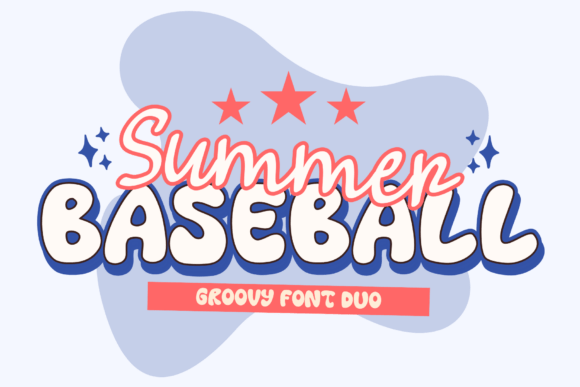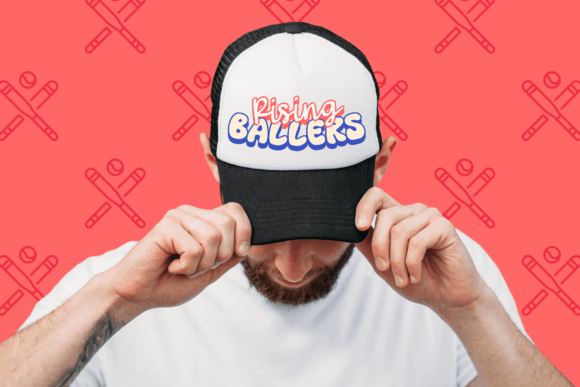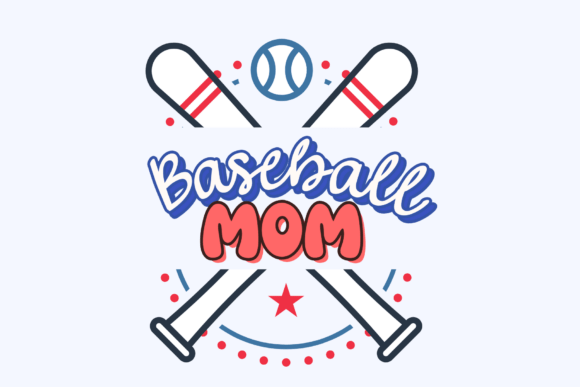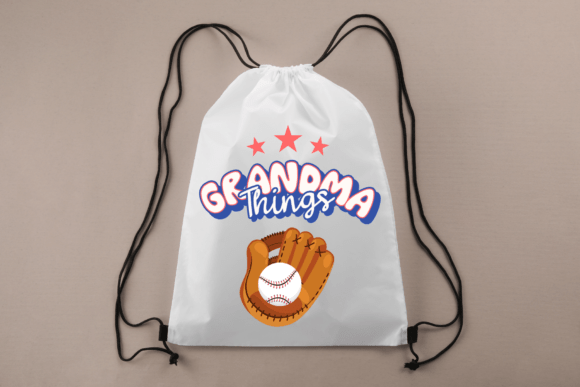
Summer Baseball Font
About the Summer Baseball Font
Experience the unique personality of Summer Baseball Font, a font designed for impact. Summer Baseball is a stylish retro duo font, combining a display and handwritten typeface that exudes a cool and groovy aesthetic. Ideal for all your hippie-inspired designs, It embodies playfulness and authenticity and is the perfect choice for all your favorite projects, or even for blog posts, logos, branding, ads, invitations, greeting cards, planners, photo albums, decorations, and much more. Add it to any of your designs, and enjoy the results!
Summer Baseball Font Usage Examples
Summer Baseball Font Example